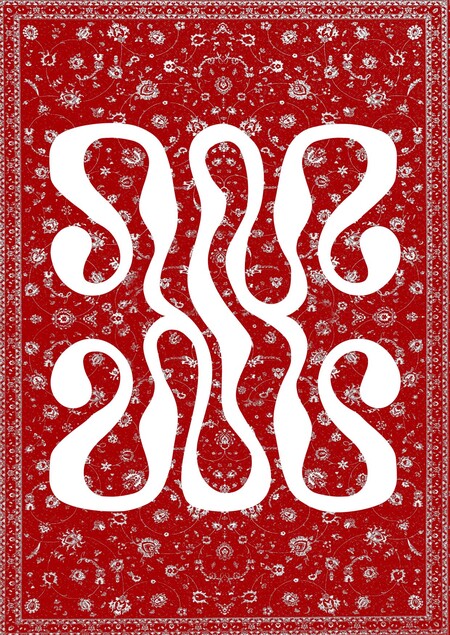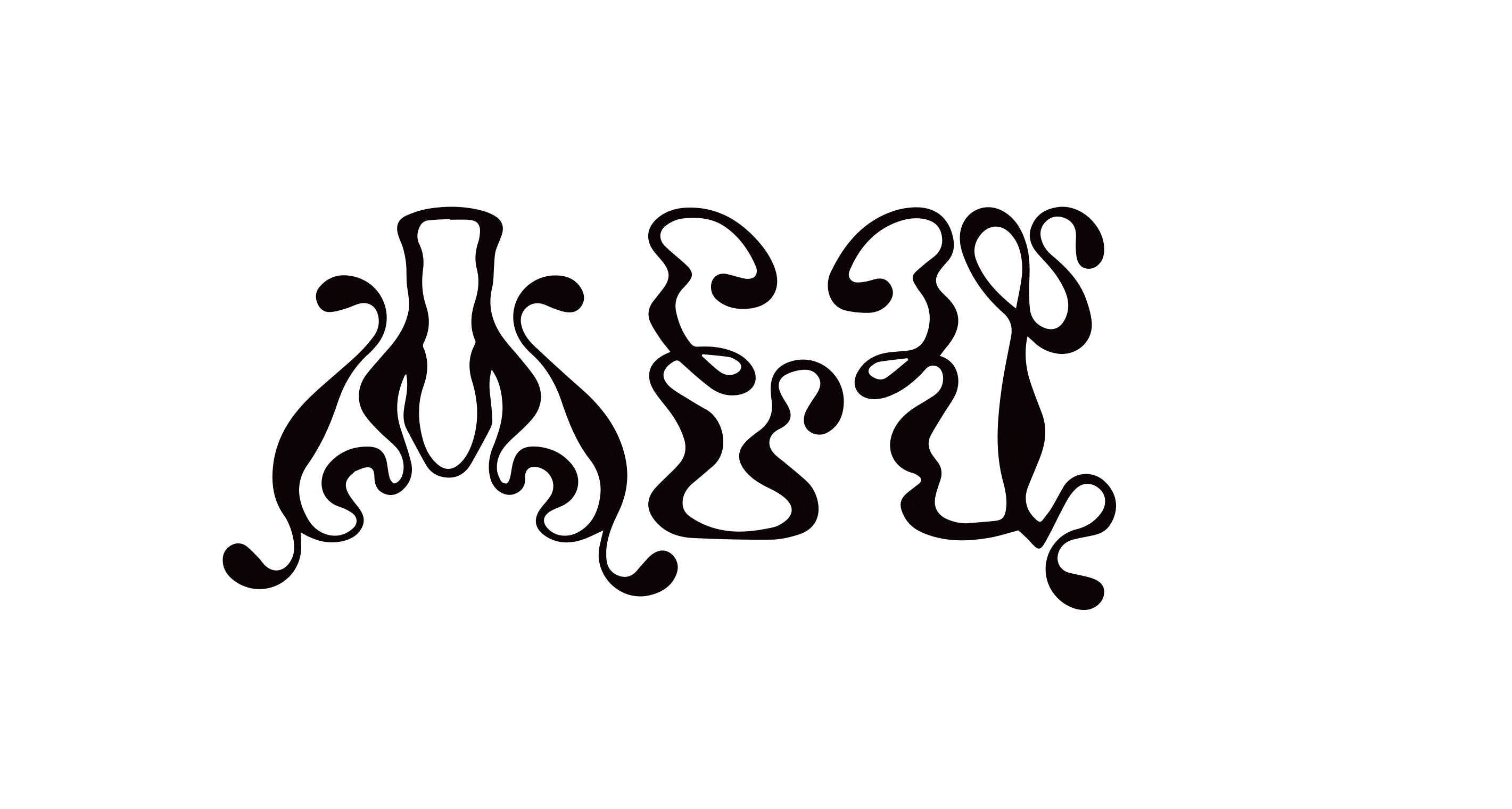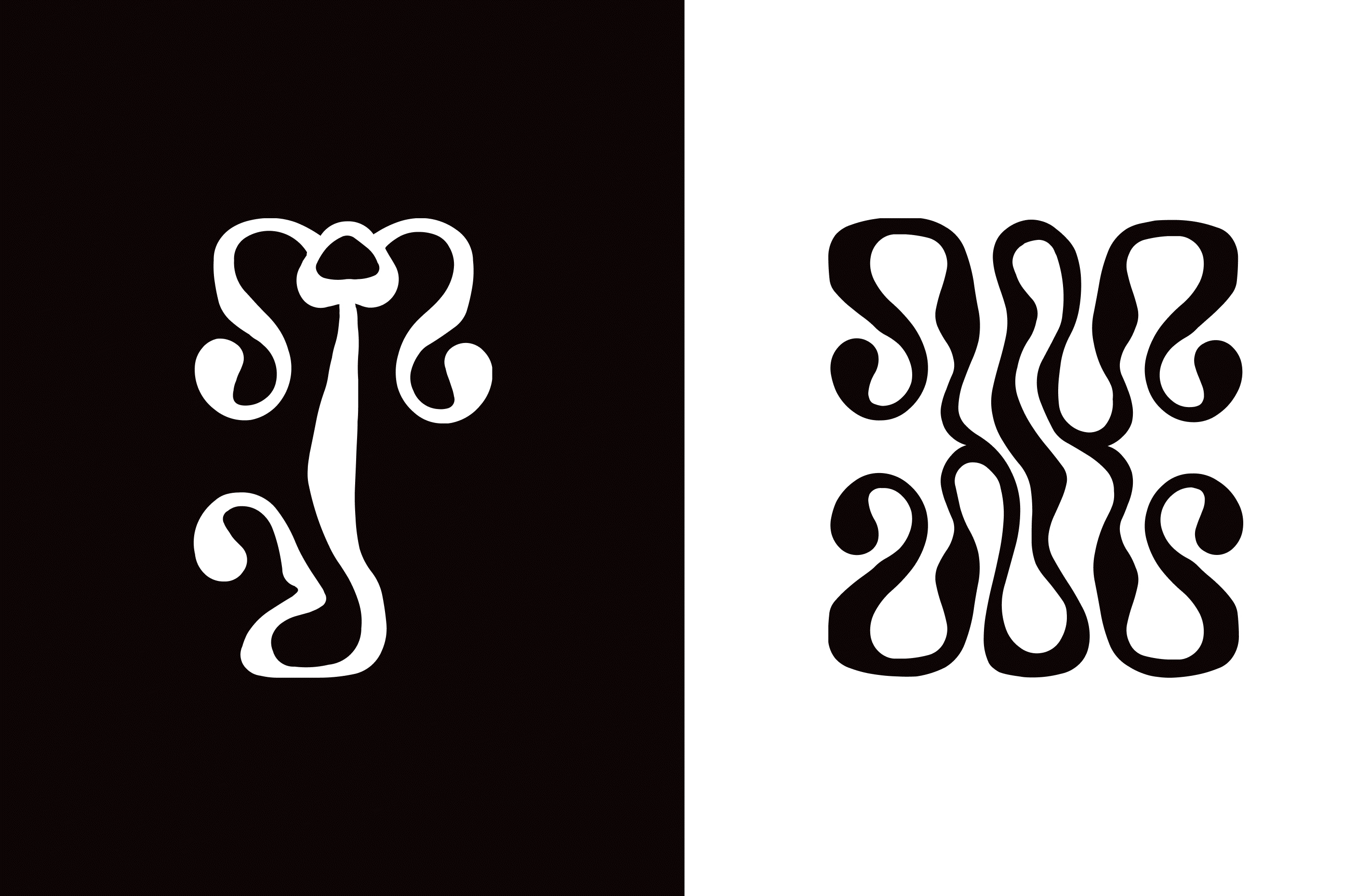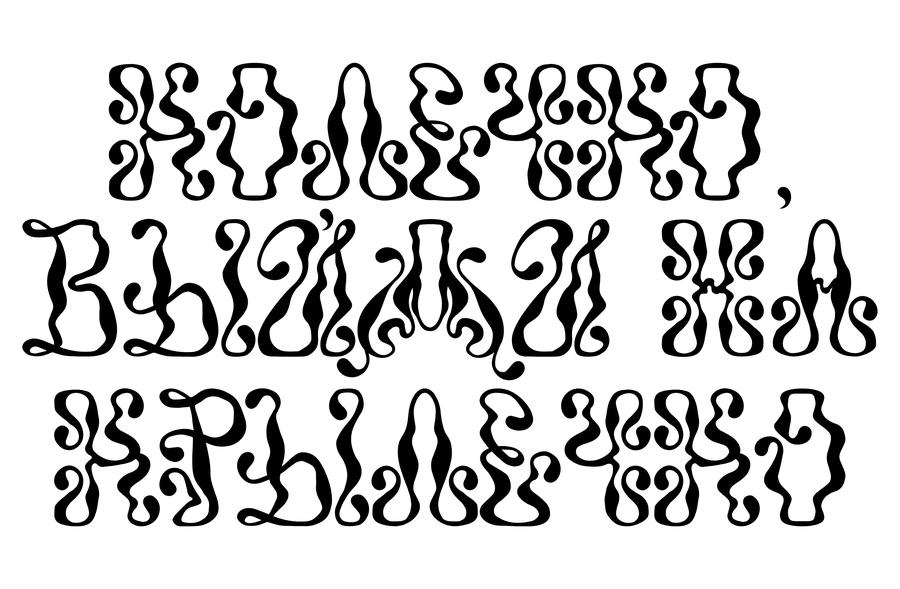
«Designator» font
How often did you come to see your grandparents when you were a kid and looked at the pattern of carpets hanging on walls or lying on the floor? «Designer» —accident decorative font inspired by the basic design element of Soviet carpets eslime. It’s called spiral lines with patterns and branches.